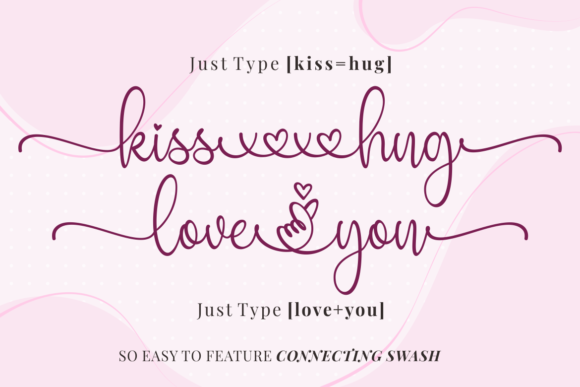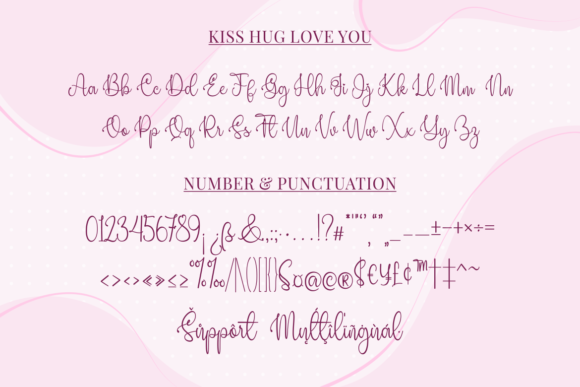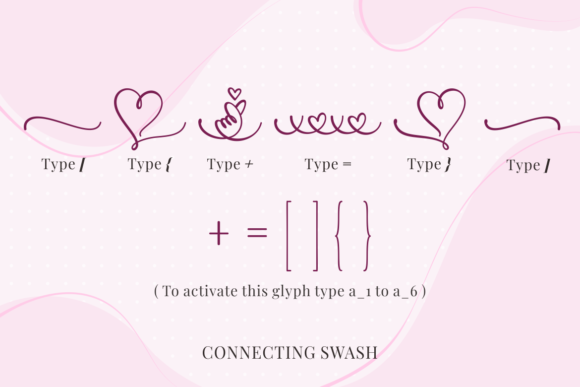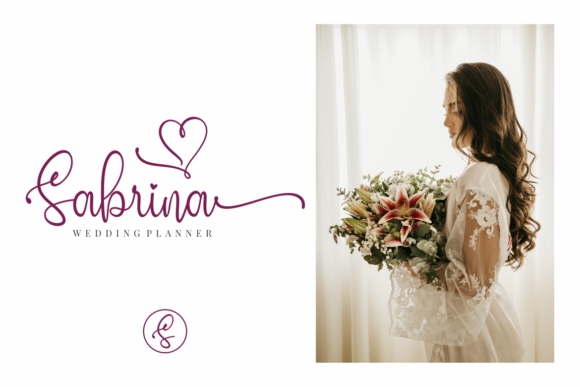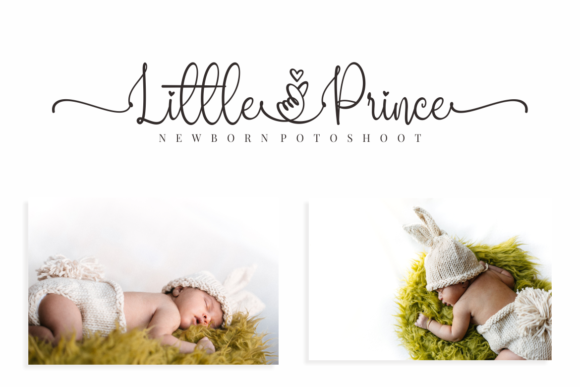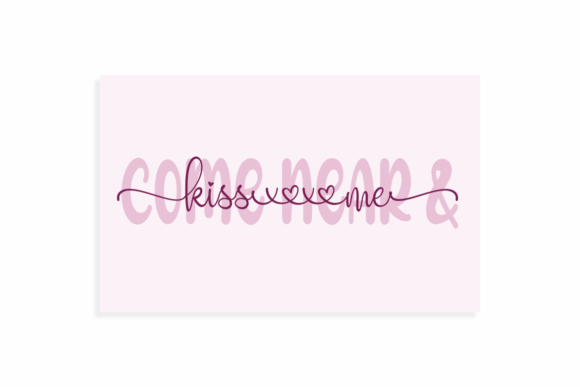
Introduction to Kiss Hug Love You Font
Have you ever stumbled upon a beautiful quote or message while browsing social media, only to wish you could turn it into a stunning visual that captures the essence of your emotions? For designers and creatives, finding the perfect font to bring their ideas to life can be a game-changer. That’s where the Kiss Hug Love You Font comes in – a delicate and romantic script font that’s sure to elevate any creative project.
With its high-quality design and transparent background, this font is an excellent resource for designers looking to add a touch of elegance to their work. Whether you’re creating graphics for Instagram, crafting calligraphy for DIY projects, or simply want to express your love and appreciation, the Kiss Hug Love You Font is an excellent choice. And the best part? It’s available for free download, making it an invaluable asset for any creative project.
Key Features of Kiss Hug Love You Font
• High-quality design resource suitable for creative projects, offering a unique and playful touch.
• Available in a transparent background, making it easy to integrate into various design elements.
• This font family includes various styles and weights, providing designers with a range of options to suit their creative needs.
• The font size is scalable, allowing designers to use it in various contexts, from small text to large headings.
• Designed with a high resolution, Kiss Hug Love You Font can be used in both digital and print projects without compromising on quality.
Honest Review: Kiss Hug Love You Font
I recently came across the Kiss Hug Love You Font and was immediately drawn to its playful and endearing design. This font is perfect for adding a touch of whimsy to any creative project, whether it’s a birthday card, a wedding invitation, or a social media post.
• ✨ The font’s transparent background makes it incredibly versatile and easy to use, allowing you to pair it with any background image or color.
• ✨ The high quality of the font ensures that it will look great even when enlarged or used in bold sizes.
One of the standout features of this font is its uniqueness. It’s not a common font you’ll find in most design resources, making it a great choice for anyone looking to add a personal touch to their creative project.
• ⚠️ The font is a bit limited in terms of its range of styles and weights, so you may find yourself needing to use multiple fonts to achieve the desired look.
Overall, I’m really impressed with the Kiss Hug Love You Font. It’s a high-quality, free download that’s perfect for adding a touch of personality to your creative projects. If you’re looking for a unique and playful font, this is definitely worth checking out.
The Kiss Hug Love You Font is perfect for creating romantic designs, such as wedding invitations or Valentine’s Day cards. You can also use it for other creative projects, such as social media posts or birthday cards.
To get the most out of the Kiss Hug Love You Font, try pairing it with other high quality fonts or graphics to create a unique and eye-catching design.